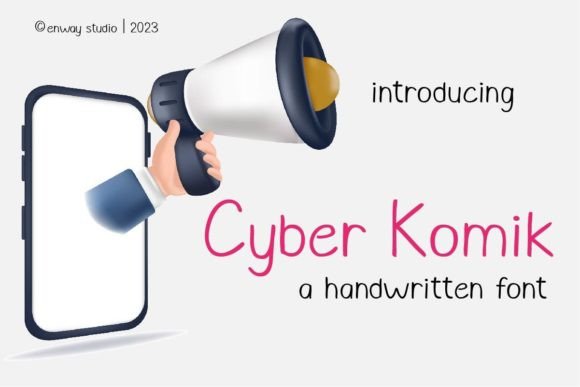
Dive into the enchanting world of Cyber Komik, a font from the script family, meticulously crafted by the renowned enway. This extraordinary font embodies a sense of effortless elegance and warmth, making it an ideal choice for book titles, posters, and branding projects that demand a touch of sophistication.
With its clean and flowing lines, Cyber Komik exudes a charming personality that captures the essence of handwritten artistry. This versatile font seamlessly adapts to various design aesthetics, lending a touch of uniqueness and character to your creative endeavors. Unleash your imagination and explore the endless possibilities that await with Cyber Komik.
Embrace the allure of Cyber Komik and watch your designs transform into captivating masterpieces. Its understated beauty invites readers to immerse themselves in your content, creating a lasting connection between your message and their hearts. Whether you're designing a captivating book cover, crafting an unforgettable logo, or creating social media graphics that radiate personality, Cyber Komik is your trusted companion.
Crafted with precision and attention to detail, Cyber Komik delivers a remarkable user experience. Its smooth curves and balanced letterforms ensure effortless readability, guiding readers through your content with ease. Discover the joy of seamless design as Cyber Komik elevates your projects to new heights of elegance and sophistication.